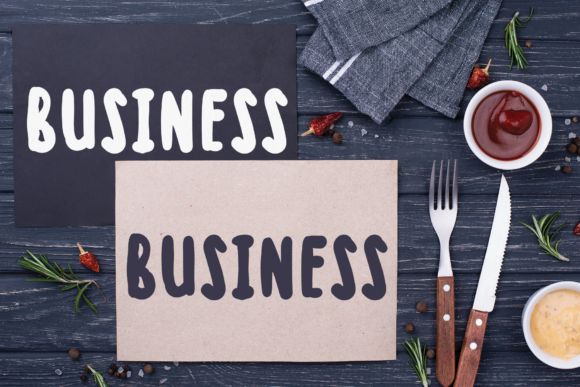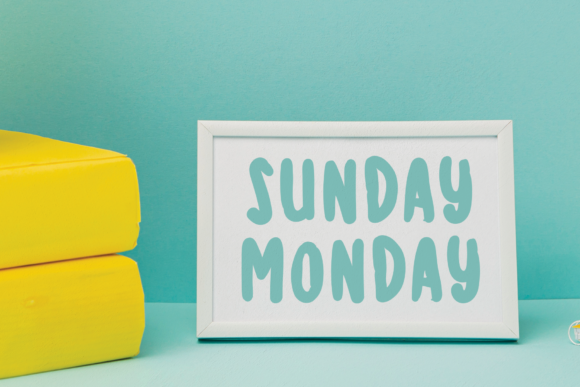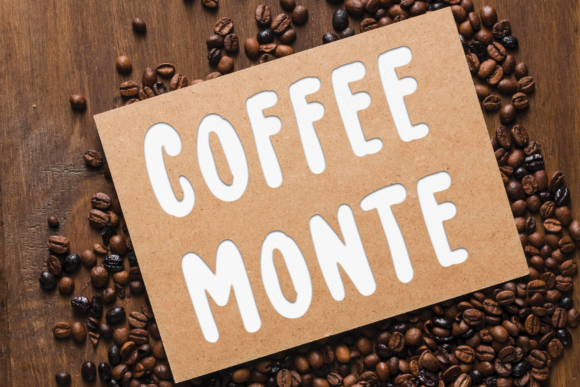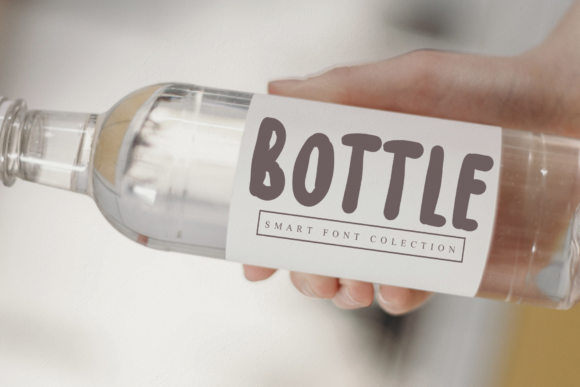
Introducing Creative Holiday Font: A Fun and Festive Typeface for Your Holiday Designs
The holiday season is upon us, and with it comes the need for festive and fun designs that capture the spirit of the season. Whether you’re a designer, crafter, or DIY enthusiast, having the right font can make all the difference in creating eye-catching and engaging holiday-themed projects. That’s where the Creative Holiday Font comes in – a fun, simple, and chunky lettered display font that’s perfect for children-themed designs, especially when combined with bright colors.
What Makes Creative Holiday Font So Special?
Creative Holiday Font is a unique and playful typeface that’s designed to add a touch of whimsy and fun to your holiday designs. Its chunky letters and simple, bold shapes make it easy to read and recognize, even at small sizes. The font’s friendly and approachable feel makes it perfect for designs aimed at children, such as holiday cards, party invitations, and festive decorations.
Key Features of Creative Holiday Font
- Fun and playful design: Creative Holiday Font features a unique and playful design that’s sure to add a touch of festive fun to your holiday projects.
- Chunky and bold letters: The font’s chunky letters are perfect for creating eye-catching headlines and titles that will grab attention.
- Simple and easy to read: Despite its bold design, Creative Holiday Font is surprisingly easy to read, making it perfect for use in a variety of holiday-themed designs.
- Perfect for children-themed designs: The font’s friendly and approachable feel makes it perfect for designs aimed at children, such as holiday cards, party invitations, and festive decorations.
How to Use Creative Holiday Font in Your Designs
Creative Holiday Font is a versatile typeface that can be used in a variety of holiday-themed designs, including:
- Holiday cards and invitations: Use Creative Holiday Font to create festive and fun holiday cards and invitations that will add a touch of personality to your greetings.
- Party decorations: Create eye-catching party decorations, such as banners, garlands, and signs, using Creative Holiday Font and bright colors.
- Festive crafts: Use Creative Holiday Font to add a touch of festive fun to your holiday crafts, such as scrapbook pages, gift tags, and DIY decorations.
- Digital designs: Use Creative Holiday Font in your digital designs, such as social media graphics, blog posts, and email newsletters, to add a touch of holiday cheer.
Tips for Getting the Most Out of Creative Holiday Font
To get the most out of Creative Holiday Font, try the following tips:
- Experiment with bright colors: Creative Holiday Font looks best when paired with bright and bold colors, so don’t be afraid to get creative and try out different color combinations.
- Use it in combination with other fonts: Try pairing Creative Holiday Font with other fonts to create interesting and dynamic typography.
- Add festive graphics and illustrations: Use Creative Holiday Font in combination with festive graphics and illustrations to create eye-catching and engaging holiday designs.
Creative Holiday Font is a fun and festive typeface that’s perfect for adding a touch of holiday cheer to your designs. Its chunky letters and simple, bold shapes make it easy to read and recognize, while its friendly and approachable feel makes it perfect for children-themed designs. Whether you’re a designer, crafter, or DIY enthusiast, Creative Holiday Font is a great addition to your font collection. So why not give it a try and see how it can add some festive fun to your holiday designs?